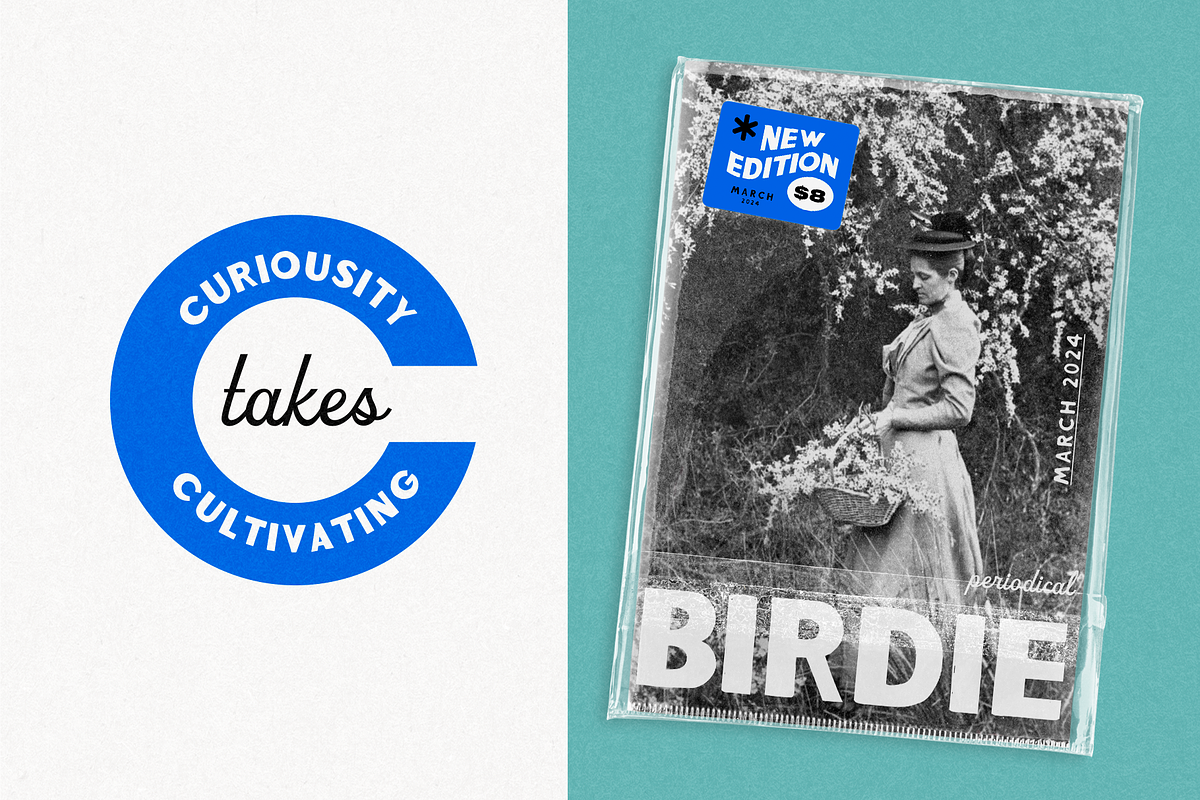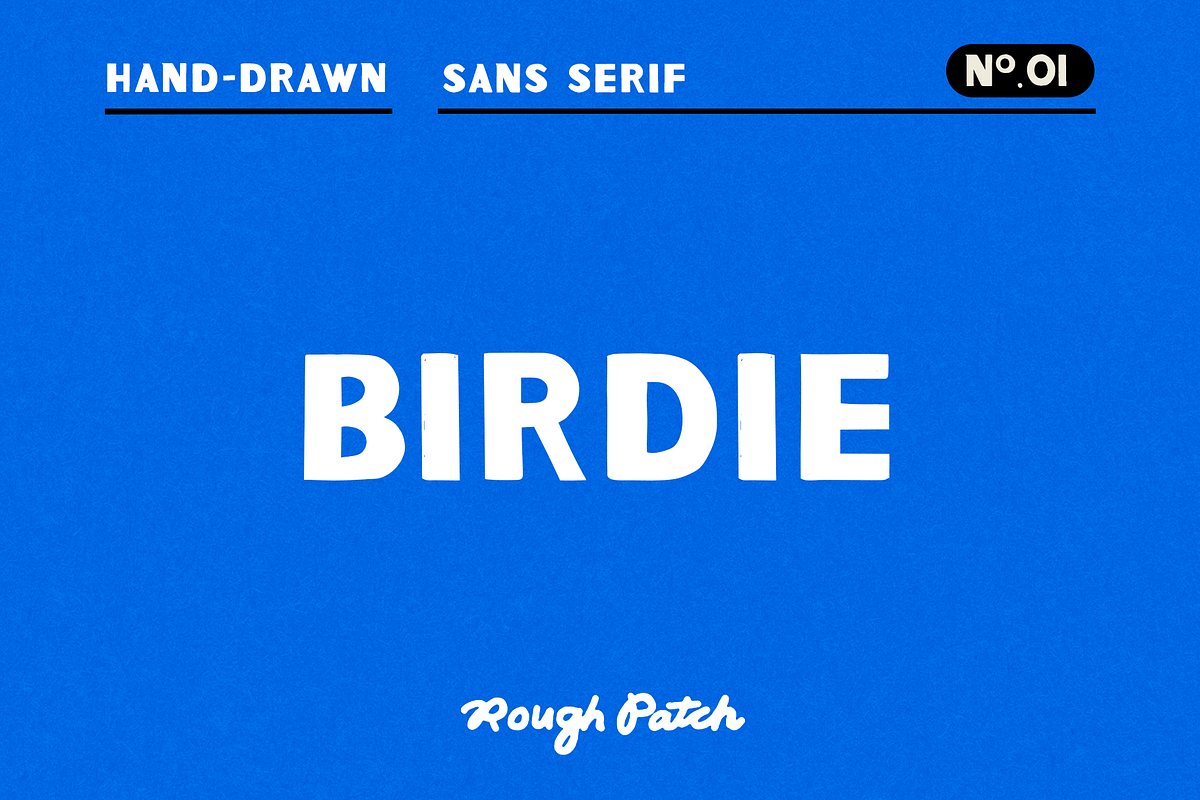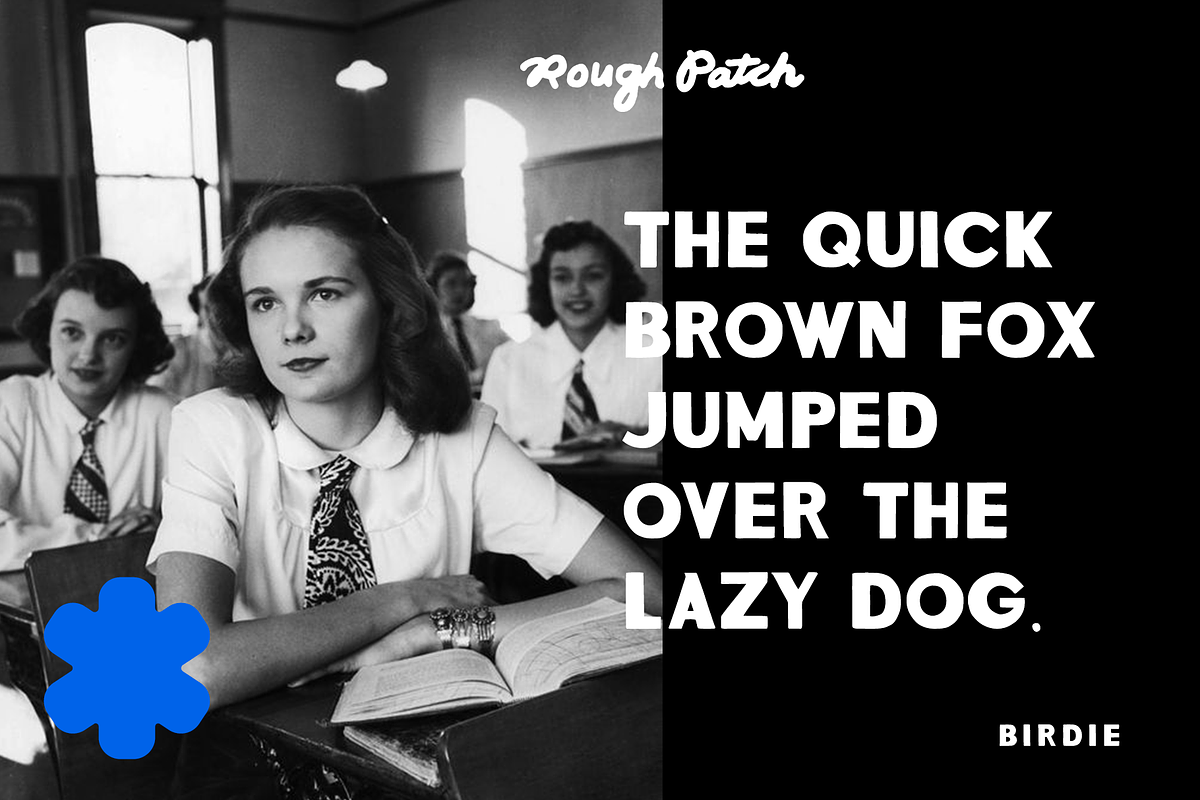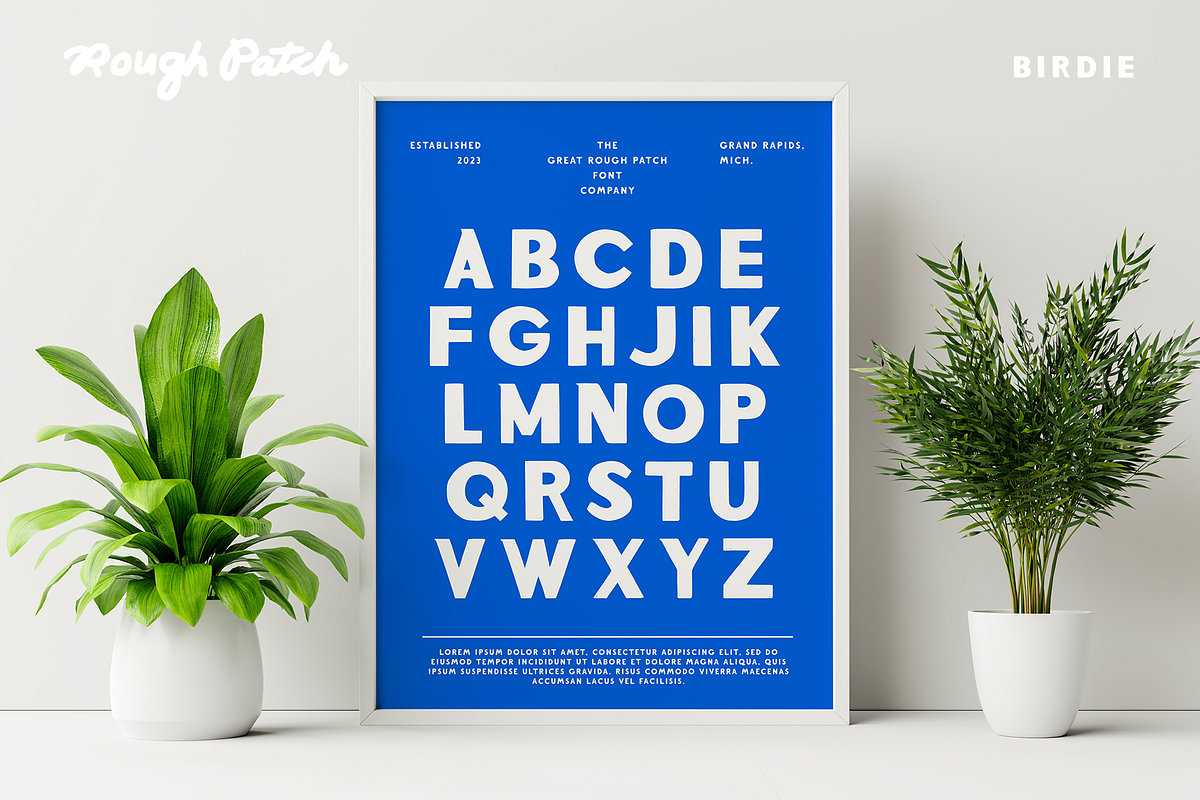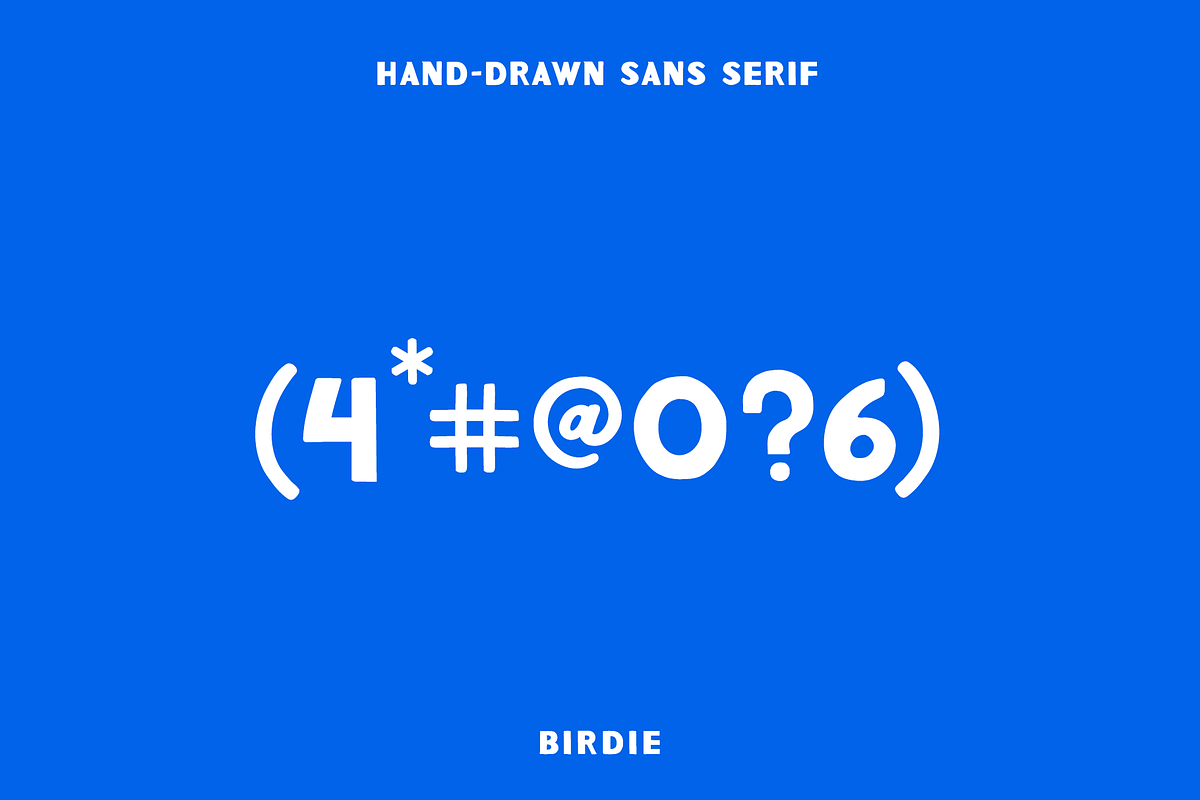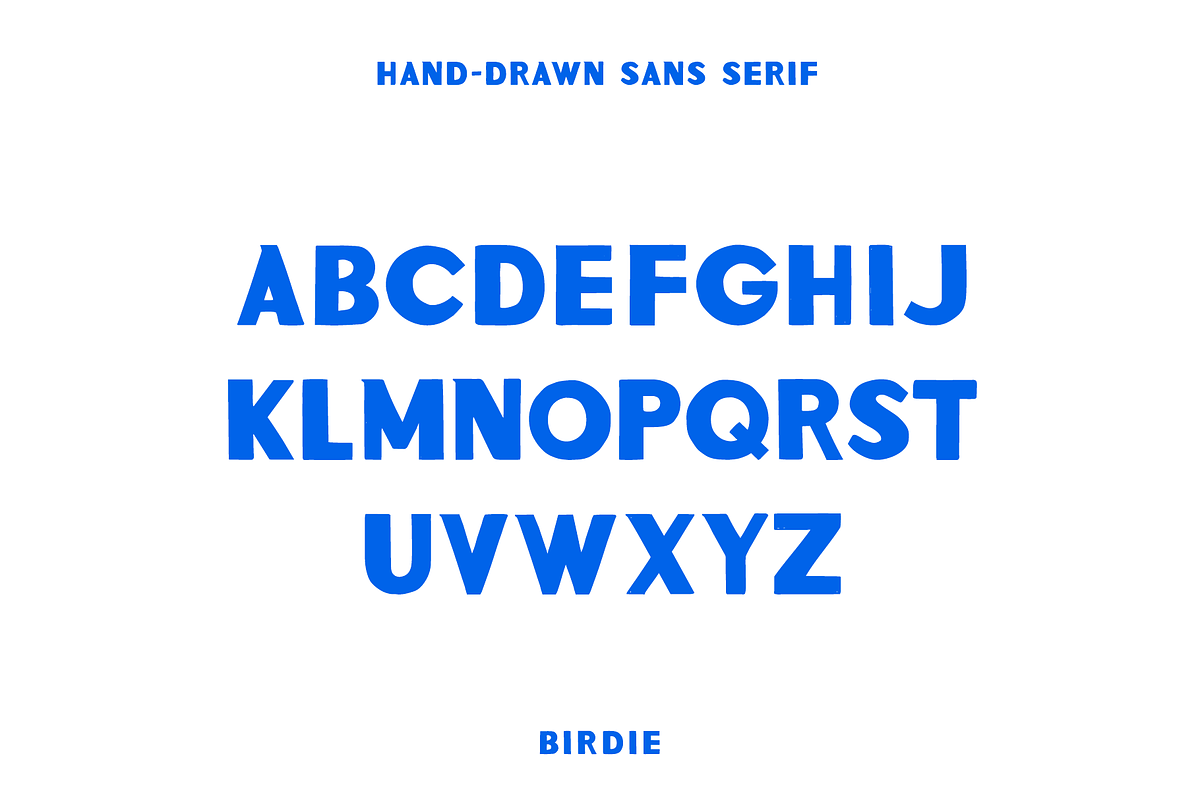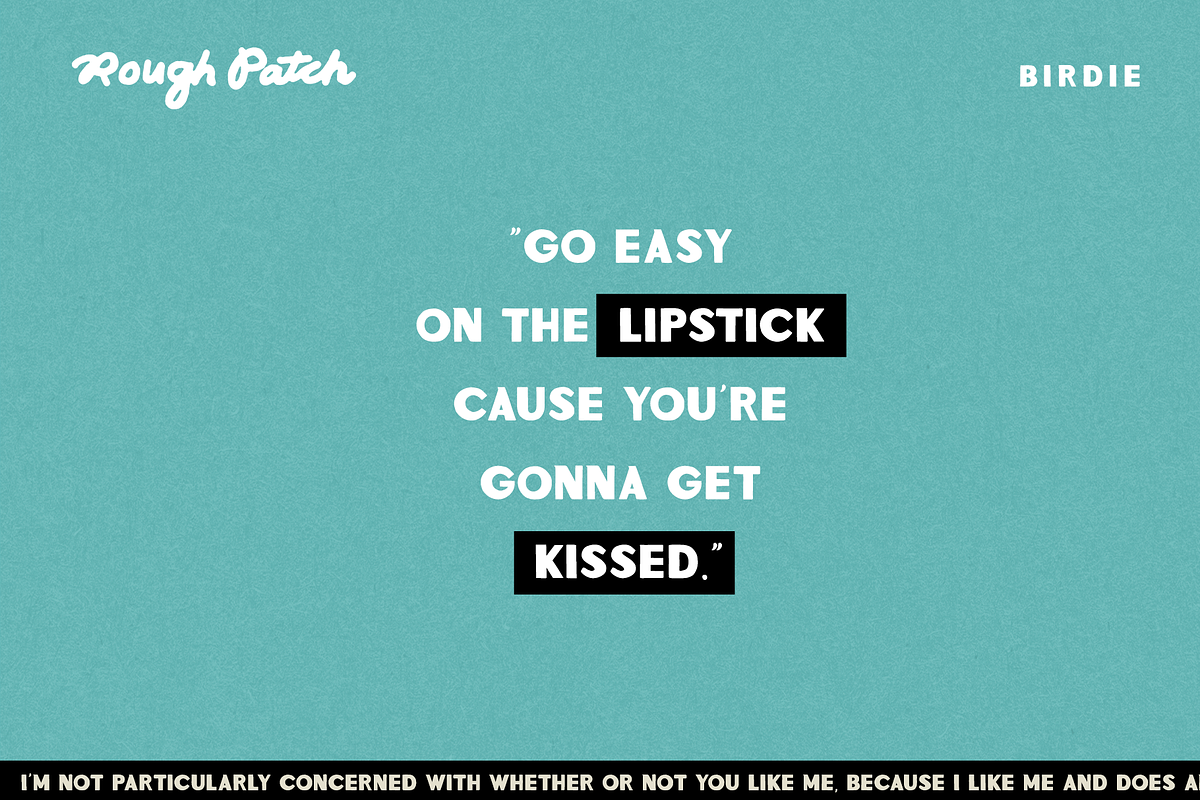
Birdie | Hand Drawn Sans Serif
Birdie This uppercase san serif font is hand-drawn, preserving a vintage feeling. The natural edges and varied weight strokes give Birdie a lot of character! Includes A-Z, numbers & primary symbols. This font is great for logos, signs, titles, packaging, and whatever other dreams you have.
Designed and kerned with care.s